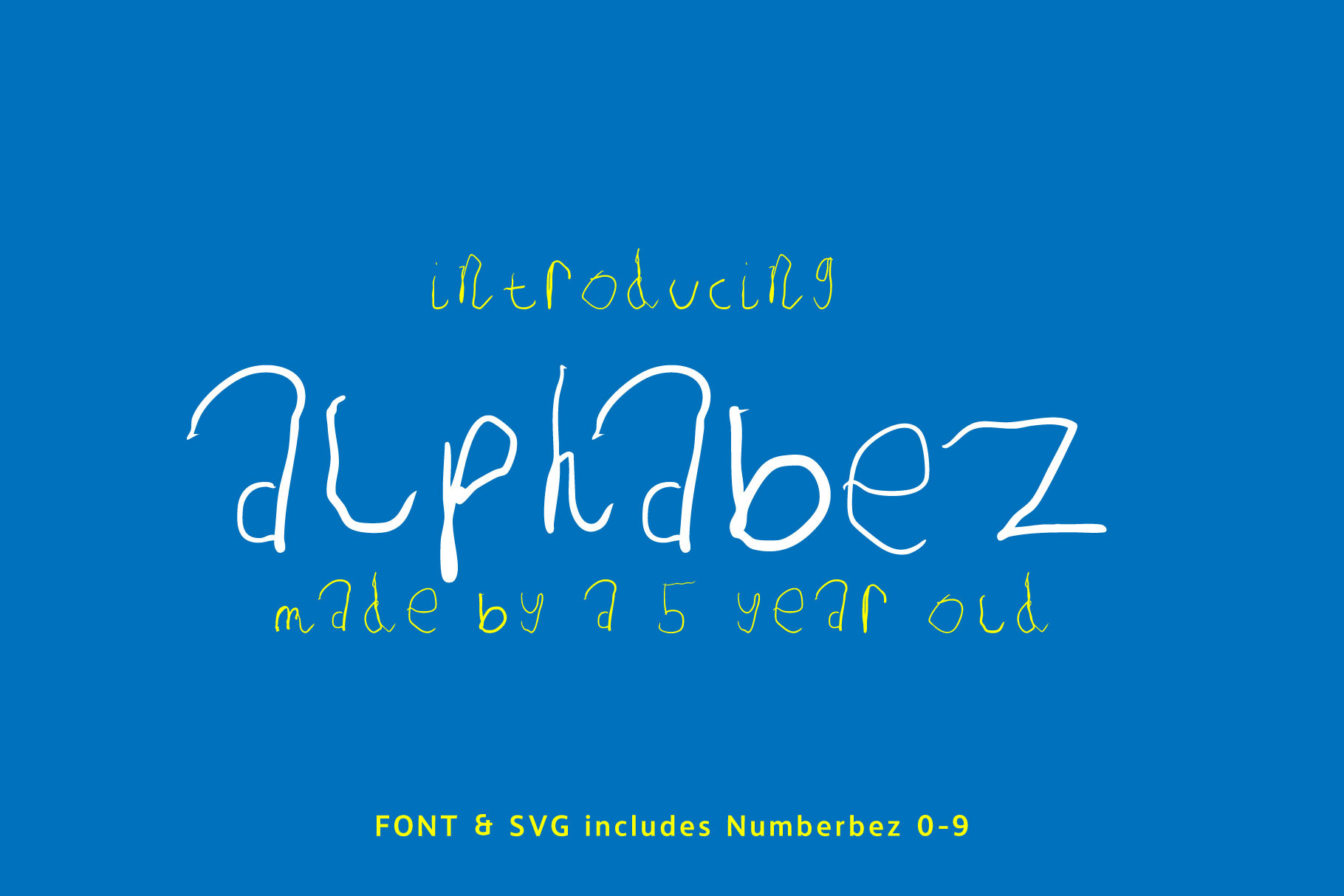
Alphabez | Hand Drawn font
Our five year old asked "what are you doing Daddy?"
The ensuing conversation included the question "can I make a font?"
The "a" is a bit mad but that's ok.